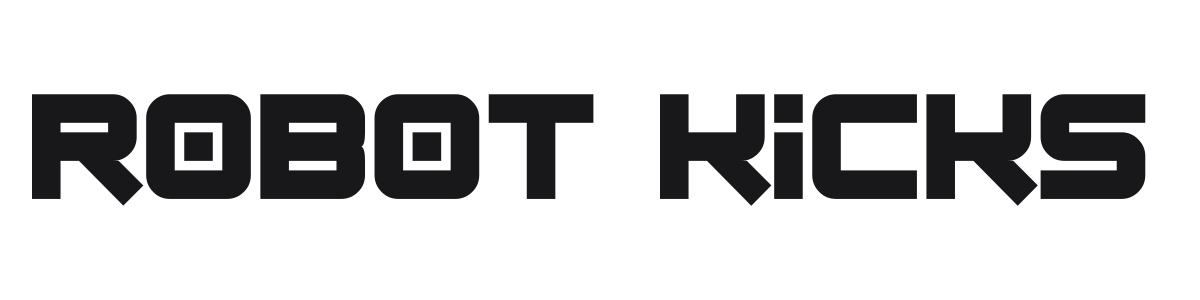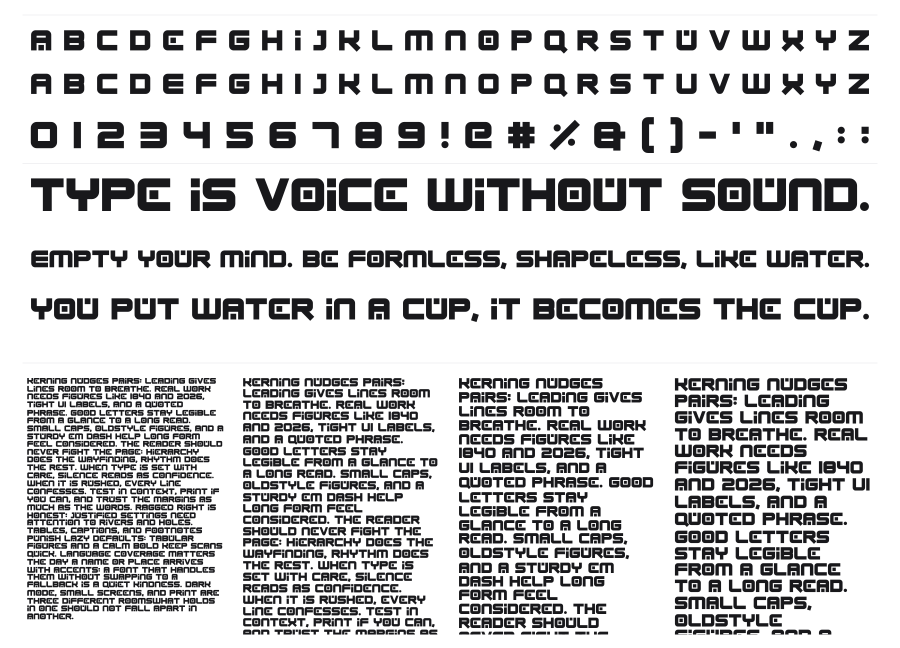
Robot Kicks
Robot Kicks is a heavy square techno font built from thick rectangular blocks with small geometric cutouts punched into the characters. The cutouts give it a mechanical, circuit-board quality that reads somewhere between a robot aesthetic and urban streetwear. It hits hard at large sizes and carries strong associations with gaming, sports, and tech culture.